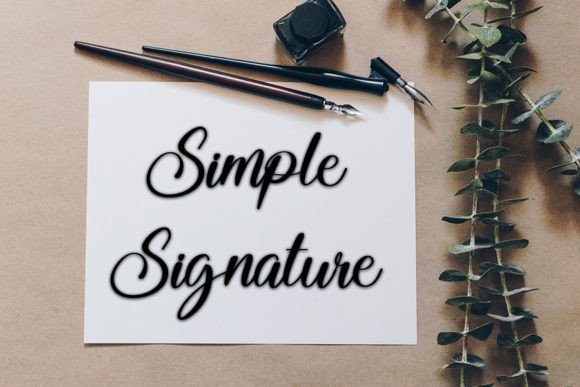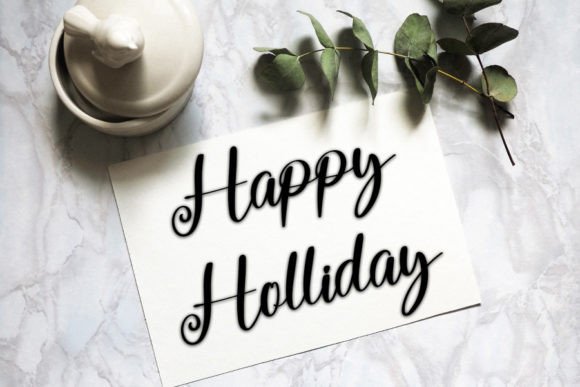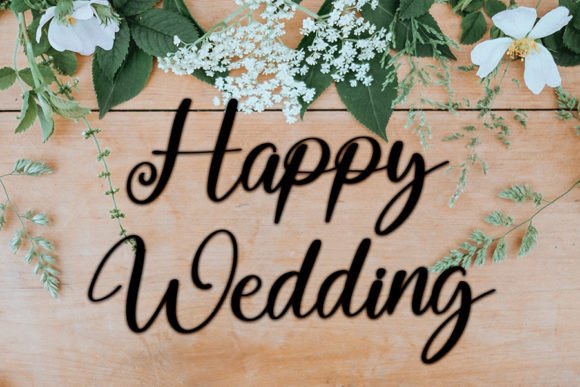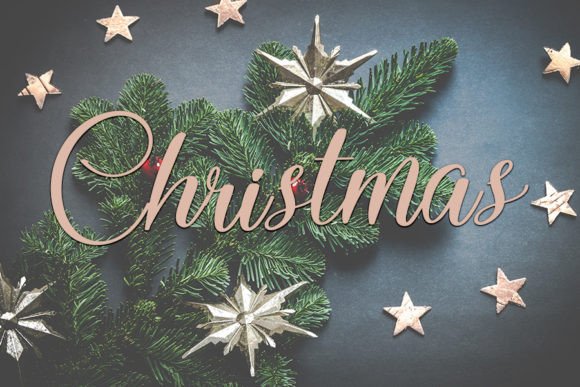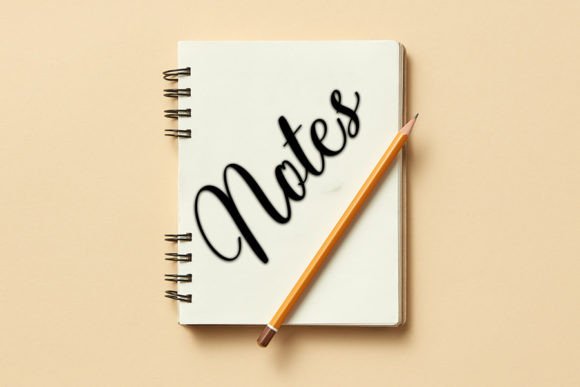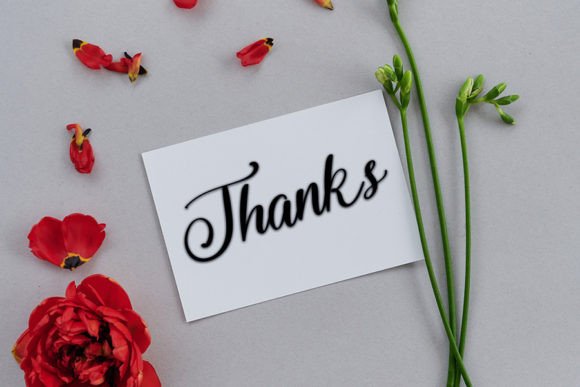
Ghosting Font
Add Timeless Elegance with Ghosting Font
The Ghosting font is a trendy handwritten script that combines a contemporary atmosphere with impeccable form, inspired by timeless classic calligraphy. This font adds a refined and elegant touch to your creative projects, helping your designs stand out with sophistication.
Perfect for Elegant and Classy Designs
The Ghosting font is ideal for various design applications including branding, invitations, logos, posters, social media graphics, packaging, and more. Its smooth, flowing strokes and classic inspiration give your projects a polished and professional look.
A Handwritten Script with Classic Inspiration
Each character in the Ghosting font is crafted with graceful, flowing lines that balance modern style and traditional calligraphy. This font is perfect for headlines, logos, and decorative text that require both elegance and clarity.
Despite its classic inspiration, the Ghosting font maintains excellent readability across various sizes. Whether used for large titles or detailed text, it balances beauty with clarity, making it a versatile choice for many creative projects.
Make Your Designs Shine with Elegant Handwriting